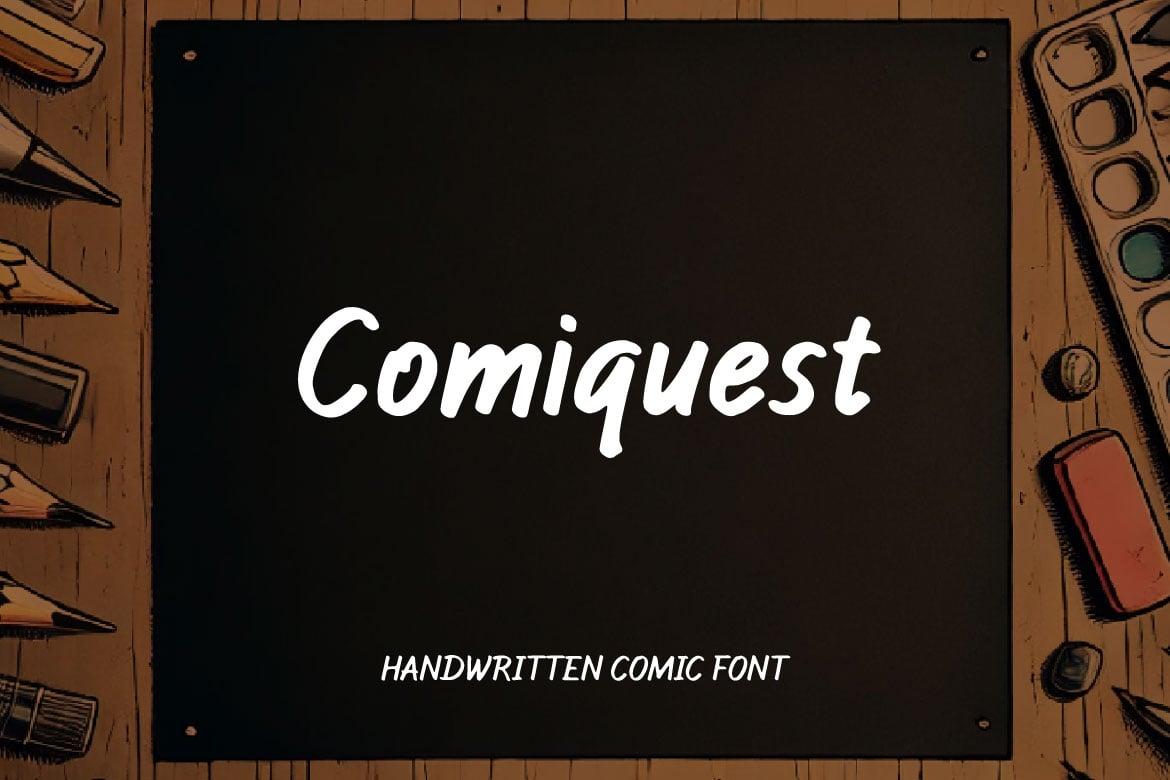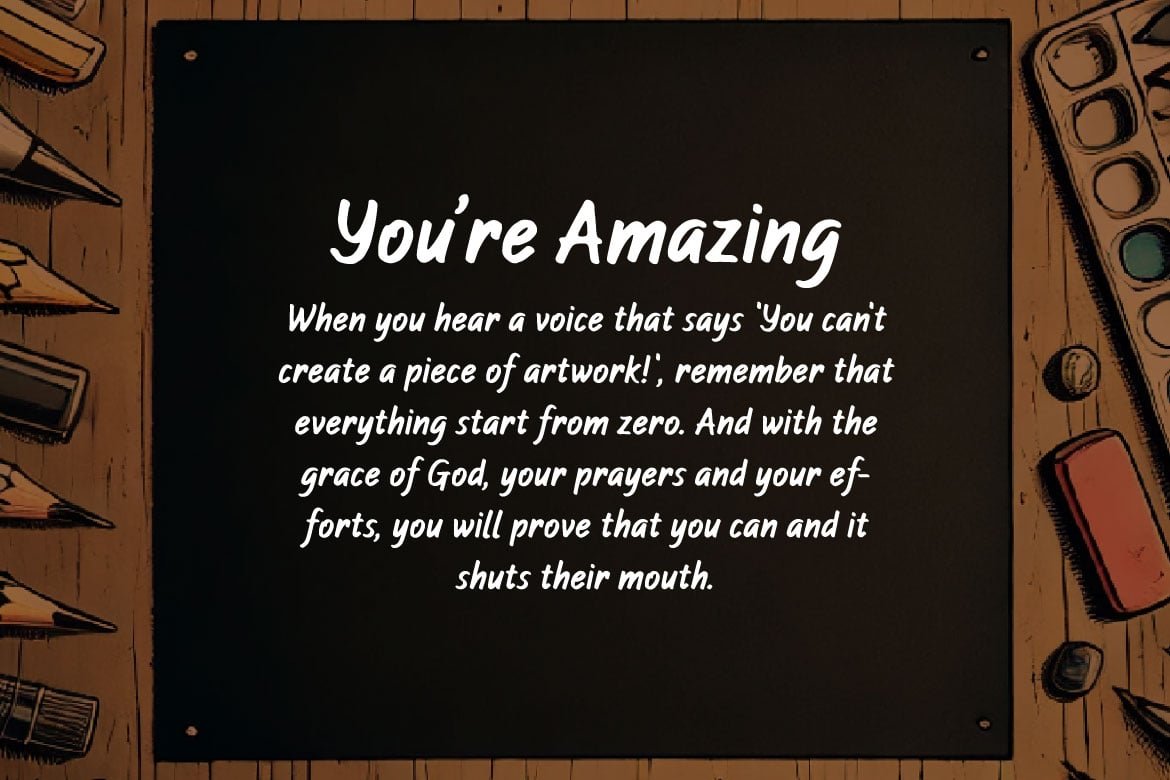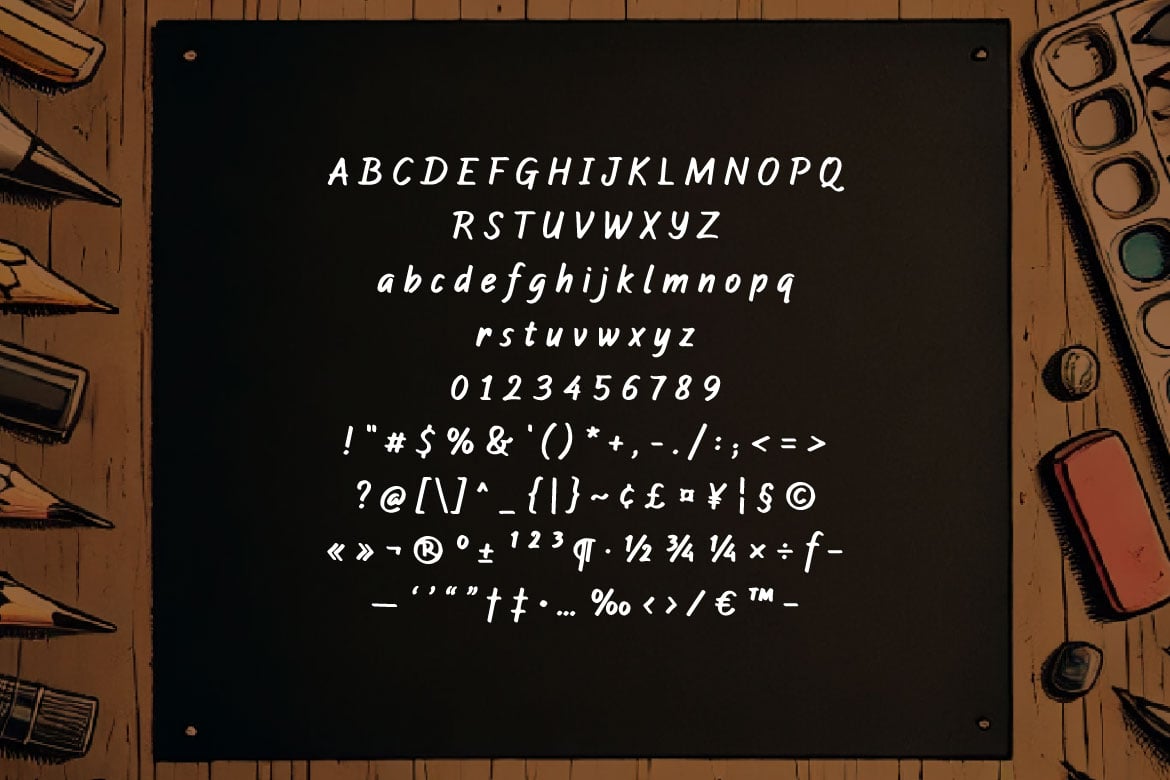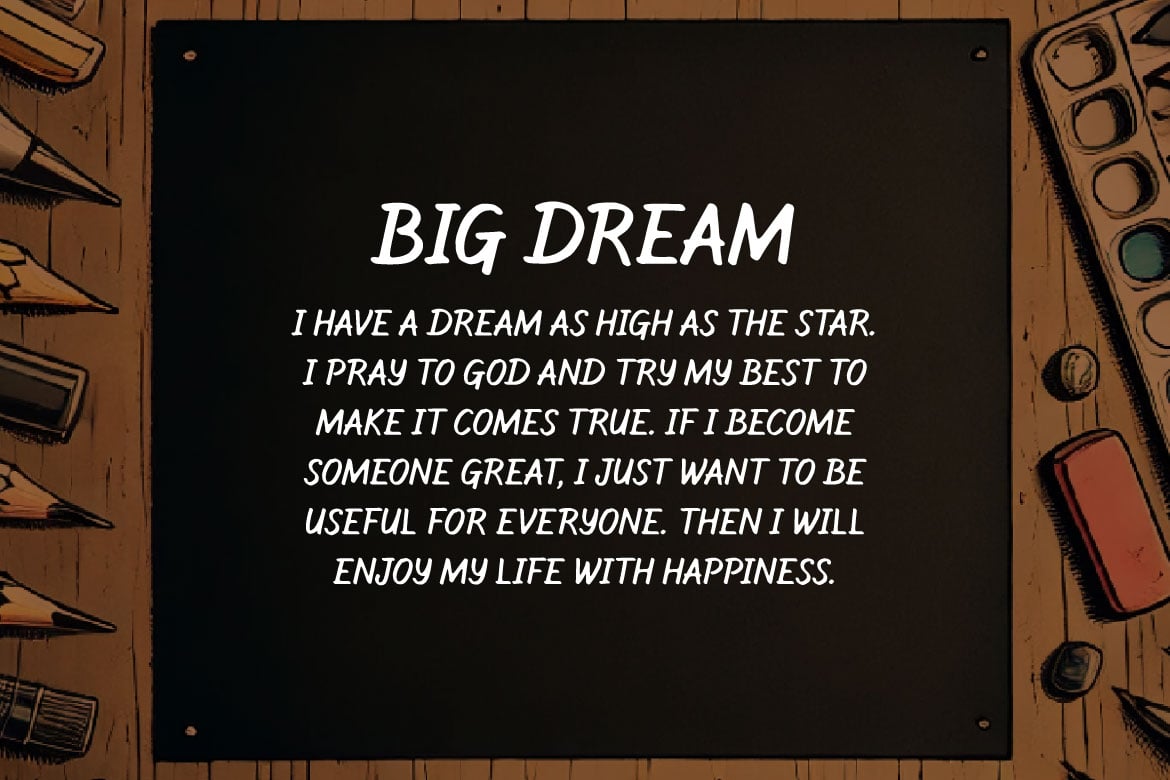
Comiquest – Handwritten Comic Font
Introducing our elegant and versatile Comiquest – Handwritten Comic Font, a perfect fusion of casual handwritten charm and modern sans-serif simplicity. This font is designed to bring a personal touch to your creative projects while maintaining a clean and professional look. Ideal for branding, logos, invitations, posters, and any project that requires a unique yet understated typeface.
Elevate your designs with the stylish and approachable feel of our Comiquest. Download it now and add a touch of personality and modernity to your creative work!